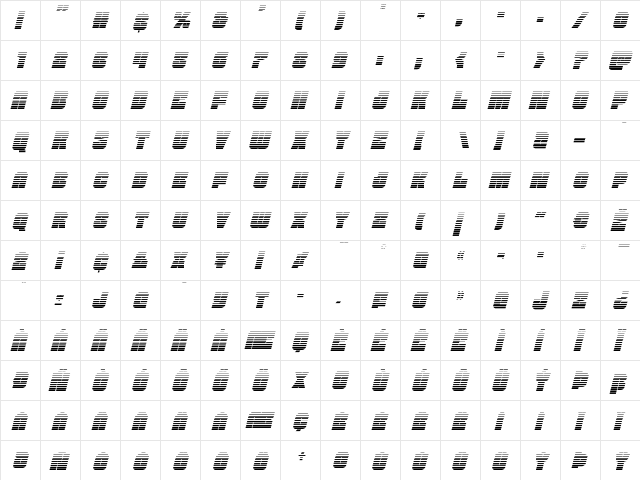
Funk Machine Gradient Italic Italic Font Preview
Design Context for Funk Machine Gradient Italic Typeface
Funk Machine Gradient Italic has an approachable, lighthearted character — its loose, expressive forms are well-suited to children's content, casual branding, and fun-first design. Its italic angle brings a sense of urgency and motion to the letterforms.
Font Pairing: Pairs well with a rounded or humanist sans for body copy, maintaining the friendly tone without relying on Funk Machine Gradient Italic to carry extended reading.
Pro Tip: Use Funk Machine Gradient Italic at larger display sizes where its expressive character can land. Pair with a clean, simple sans for body copy to maintain readability.